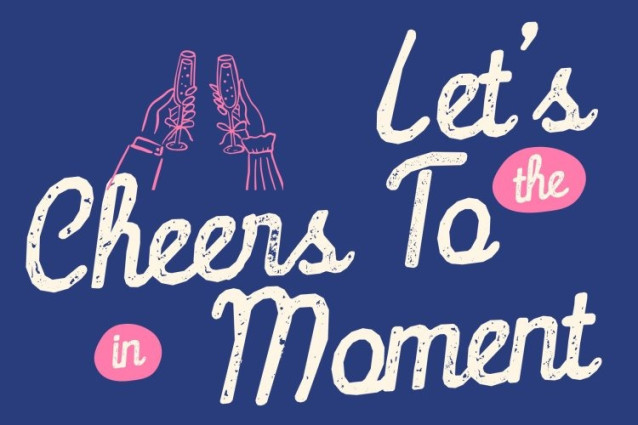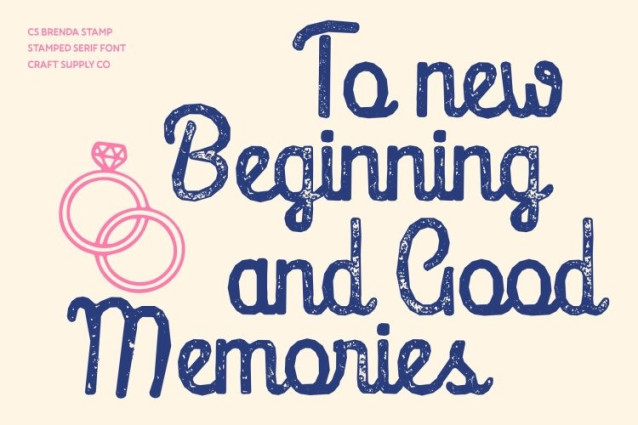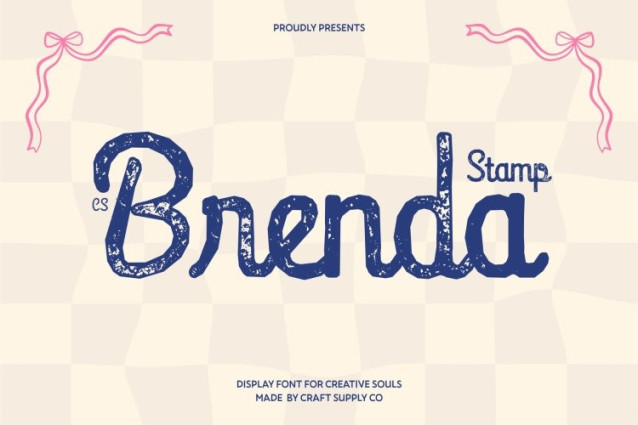
CS Brenda Stamp Font
CS Brenda Stamp Font – This is a modern script font that blends a clean, minimalist handwritten style with a subtle stamped texture. Each character flows smoothly with refined strokes, while the stamped effect introduces gentle ink variations that add warmth and authenticity. This combination preserves the font’s polished elegance while giving it a handcrafted, expressive touch.
Beautiful Flow with Organic Texture
Designed with soft curves and graceful movement, delivers a sweet and charming aesthetic enhanced by its textured finish. The stamped detail adds depth and personality, making the letters feel more organic and lively while maintaining the harmony and clarity of the original script style.
Playful Elegance for Feminine Designs
Balancing playful charm with refined sophistication, this is ideal for projects that aim to feel stylish, approachable, and expressive. Its textured script creates a warm and inviting impression, perfect for conveying beauty, creativity, and modern femininity.
Perfect for Trendy and Personal Branding
From beauty product packaging and café menus to wedding invitations, social media graphics, and lifestyle branding, this font brings a distinctive blend of elegance and personality. Its modern handwritten flow combined with the stamped texture ensures designs feel both contemporary and authentically crafted.